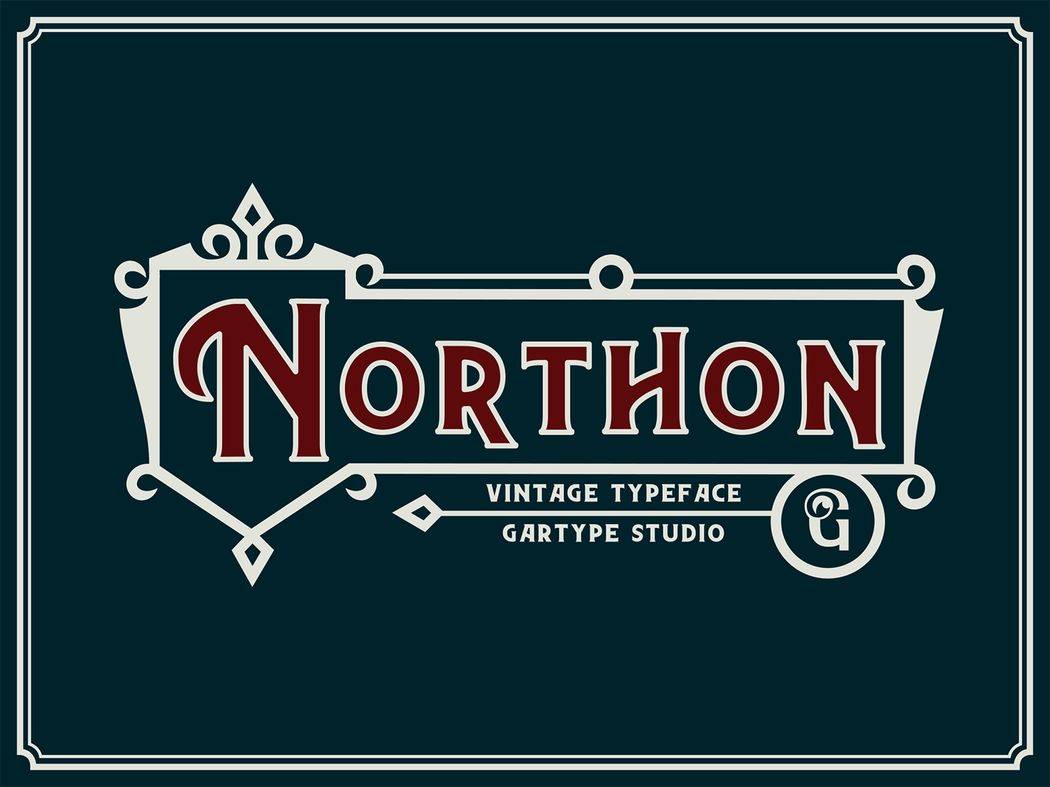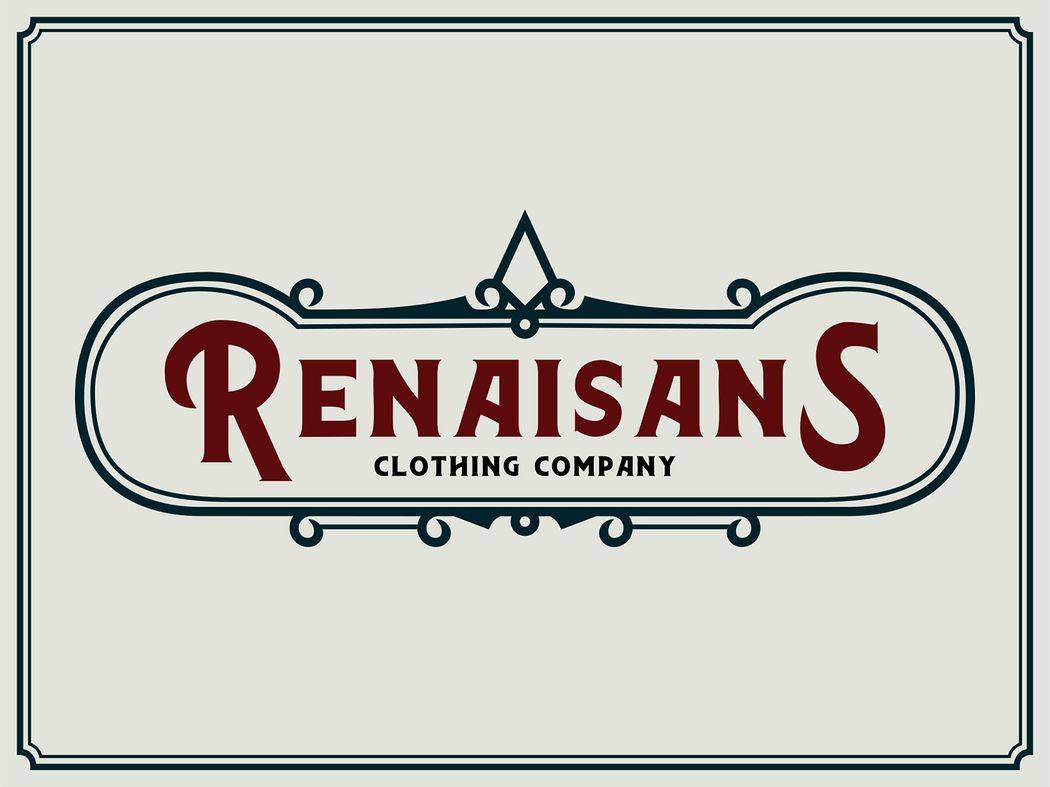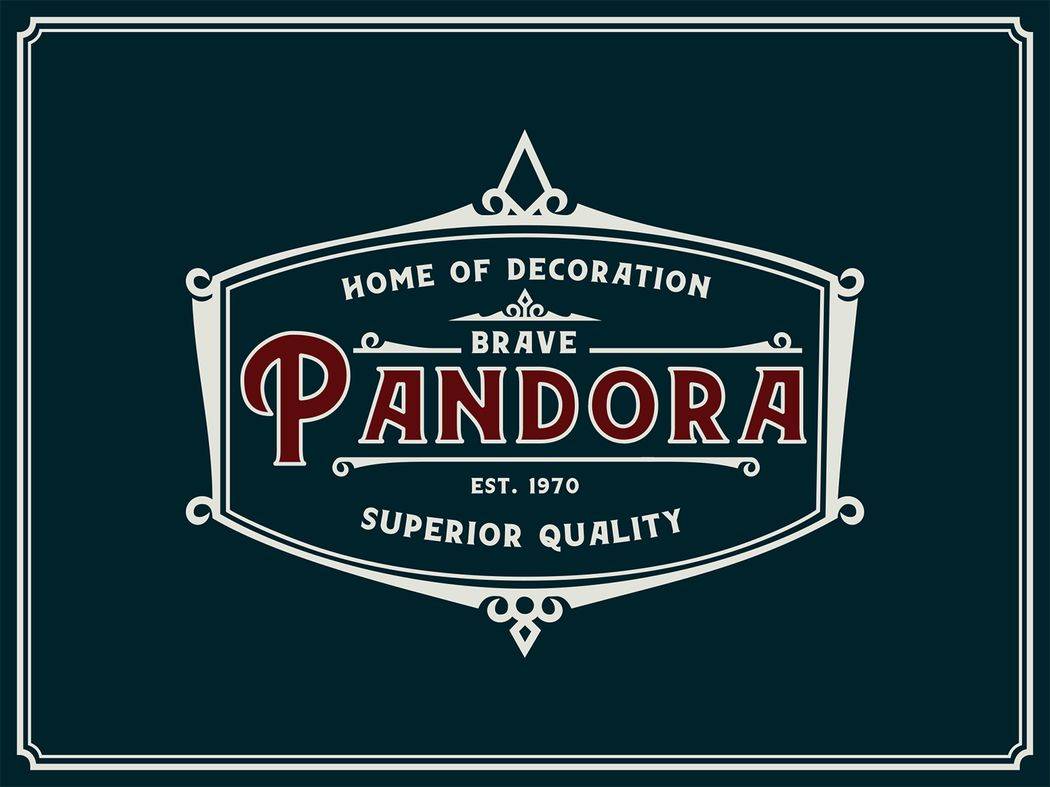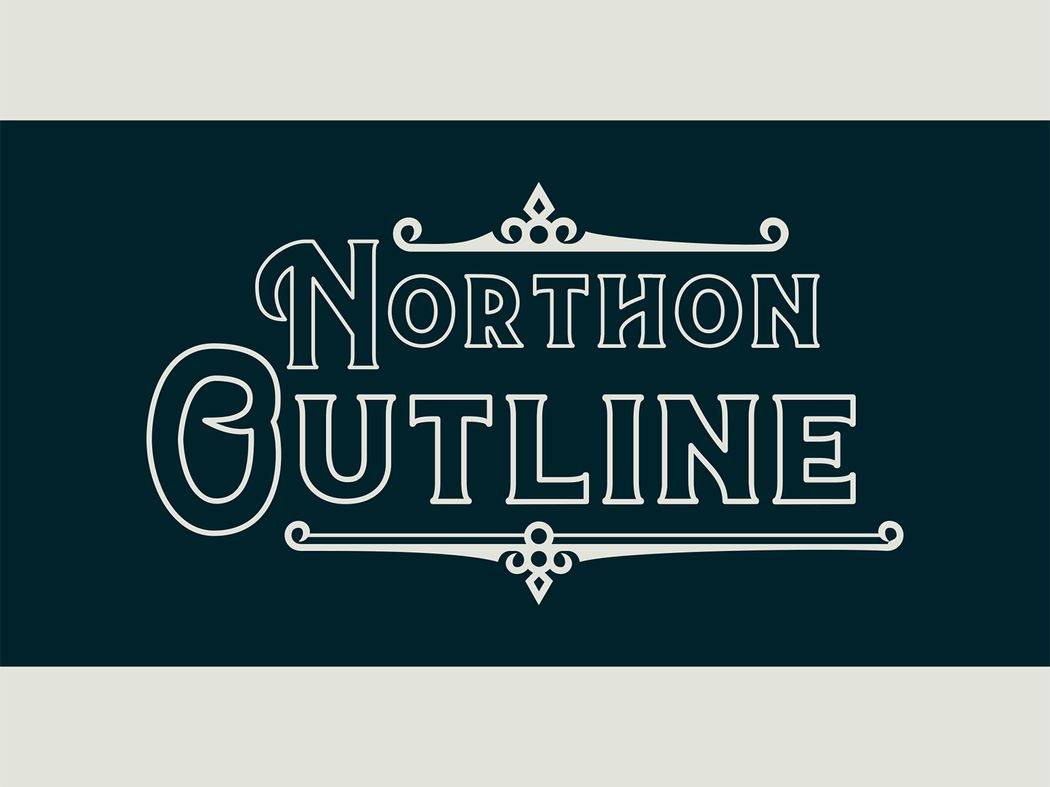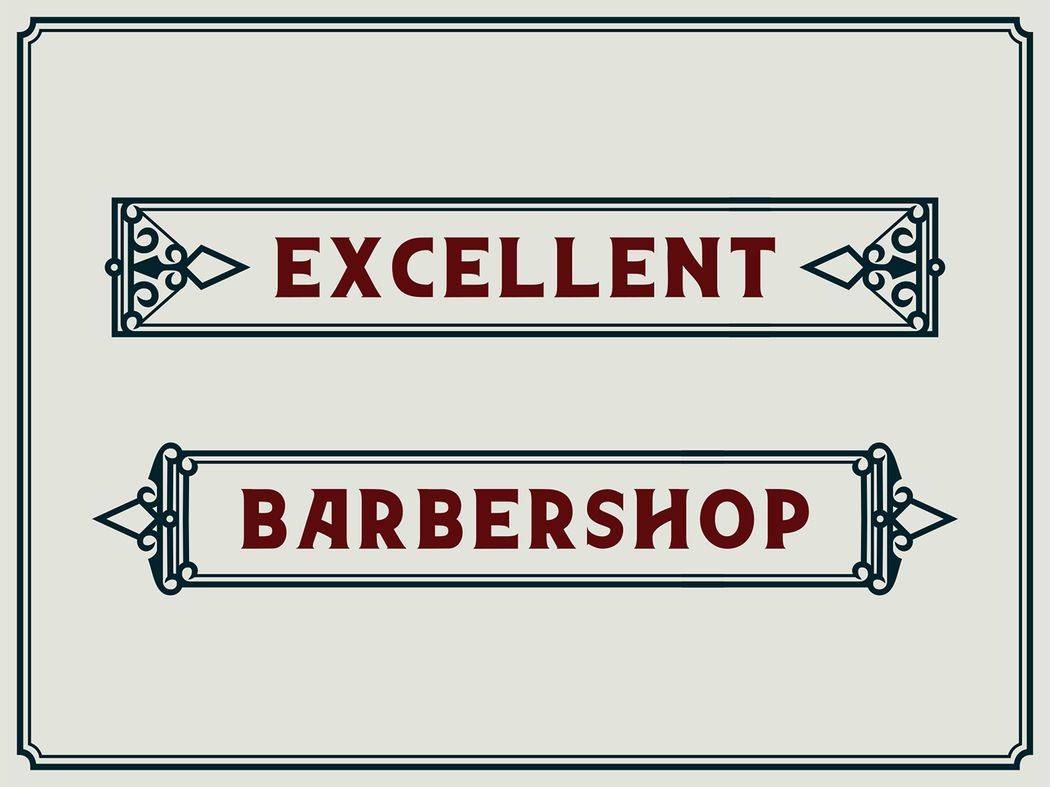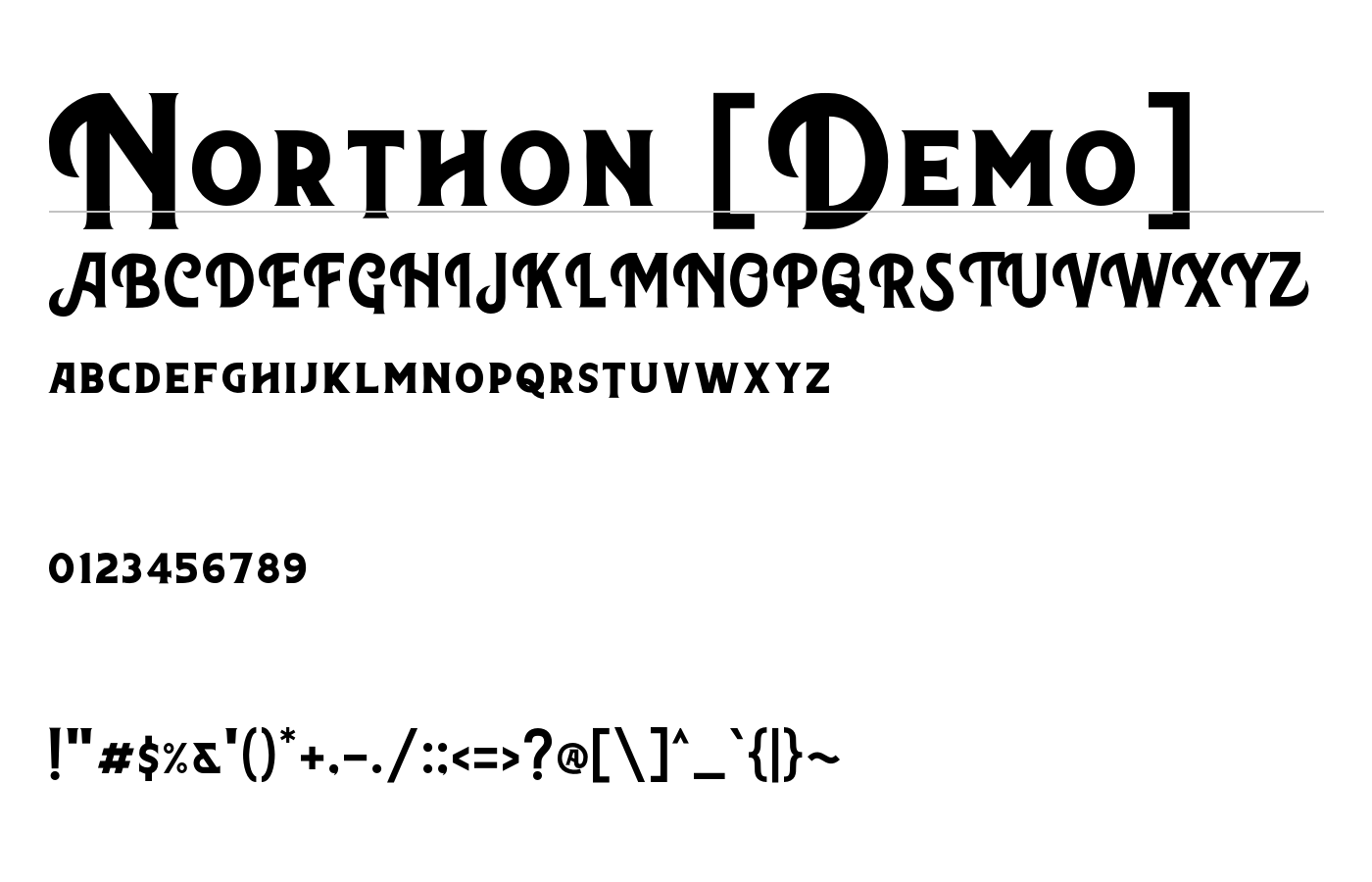
Northon is a bold serif font with a distinctive vintage flair, featuring strong, bracketed serifs and unique letterforms that blend both sharp and rounded elements. Its high contrast and decorative touches give it an elegant yet playful personality, making it perfect for vintage branding, logos, headlines, and packaging that require a memorable and classic look. This font works well in designs aiming to evoke tradition with a modern twist, standing out in editorial and display uses where character and impact are essential.
Northon Font
About Northon Font